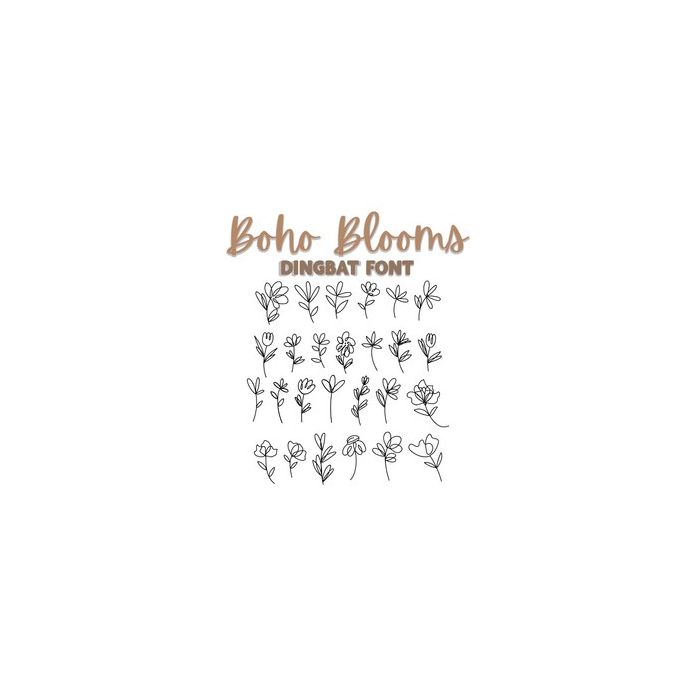
Introducing "Boho Blooms" - a captivating line art boho flower font that effortlessly combines the free-spirited essence of bohemian aesthetics with the delicate beauty of blooming flowers. Crafted with meticulous detail, each letter in this font is adorned with intricate floral motifs, adding a touch of natural elegance to your designs.
This versatile font is a perfect choice for adding a unique and artistic flair to your projects. Whether you're working on invitations, posters, or branding materials, "Boho Blooms" will infuse your creations with a sense of organic charm that's bound to catch the eye. Its whimsical yet refined style is ideal for crafters, small business owners, and anyone seeking to evoke a bohemian and floral-inspired vibe in their designs.